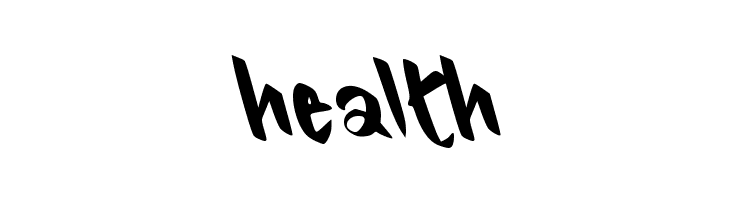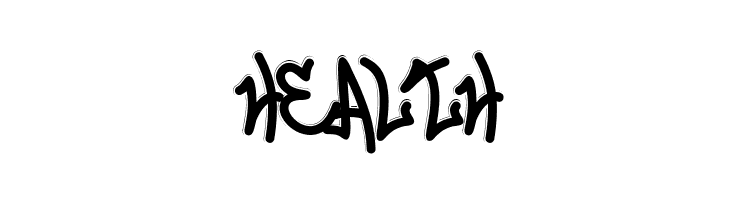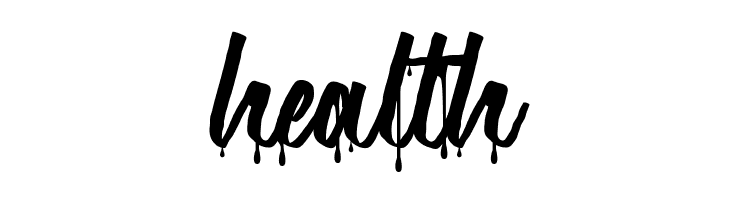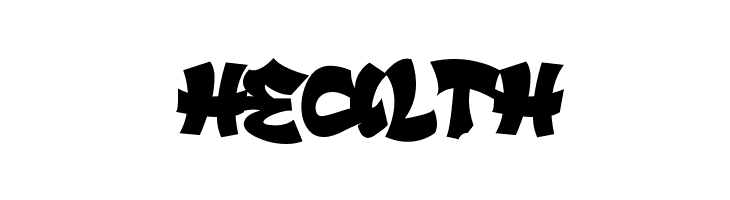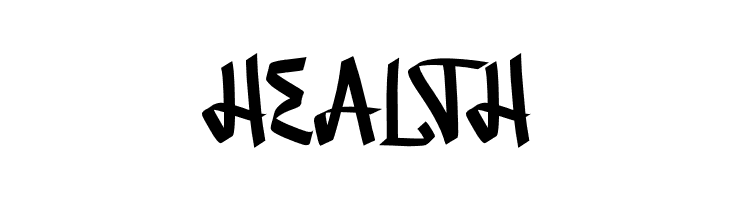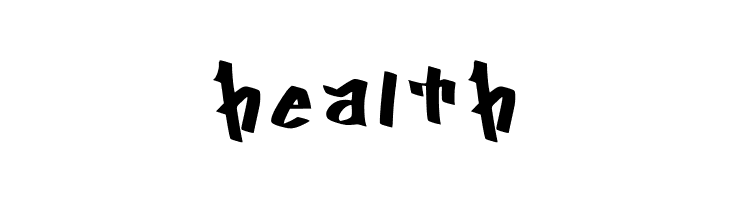
A bold, graffiti-style font with angular, dynamic letterforms.
A bold, graffiti-inspired font with sharp angles and dynamic curves.
A graffiti-inspired font with bold, dynamic strokes and an urban flair.
A bold, graffiti-inspired font with dynamic, stylized characters.
A bold, graffiti-inspired font with sharp, angular lines and dynamic style.
A bold, graffiti-inspired script font with a dripping effect.
A bold, graffiti-inspired font with dynamic, angular strokes.
A bold, angular font with a graffiti-inspired style.
A bold, graffiti-inspired font with a rugged, hand-drawn appearance.
A bold, graffiti-inspired font with sharp, angular edges and dynamic styling.